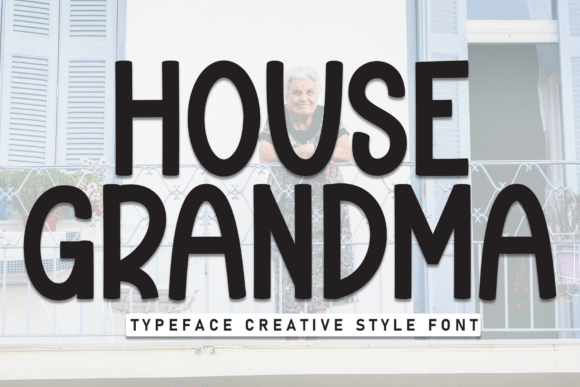
Discover the Joy of Handwritten Charm with House Grandma Font
Have you ever sat down to create a handmade wedding invitation or a heartfelt greeting card, only to feel stuck by the blank page staring back at you? We’ve all been there, searching for the perfect words to convey our emotions and love. That’s where the magic of House Grandma Font comes in – a delightful handwriting display font that adds a pinch of joy to your creative projects.
With House Grandma Font, you can turn the mundane into something truly special. This charmingly playful font is designed to bring a smile to your face and a touch of warmth to your designs. Whether you’re a seasoned designer or a crafty enthusiast, House Grandma Font is the perfect addition to your toolkit. Its versatility and friendliness make it a valuable asset for any creative project, from wedding invites to greeting cards and beyond.
House Grandma Font Key Features
- Unique Characteristics: House Grandma Font features a distinctive, hand-drawn style with a mix of modern and vintage elements, giving it a unique and eye-catching aesthetic.
- Legibility: The font is designed for optimal legibility, with clear and readable letterforms that make it suitable for body text and headlines alike.
House Grandma Font Review
I recently had the chance to work with the “House Grandma Font”, and I must say, it’s a font that will either bring warmth and nostalgia to your designs, or possibly overwhelm them. Let’s dive into the details.
- ✨ The font’s vintage feel is a great addition to any design that needs a warm and cozy touch.
- ✨ The variety of styles and weights available make it easy to find the perfect fit for your project.
- ✨ The font is well-suited for use in print materials, such as invitations and brochures, where a more traditional look is desired.
- ⚠️ The font can be quite busy, and may be overwhelming in larger quantities or in digital designs where a clean and minimal look is preferred.
- ⚠️ Some of the letters may not be as legible at smaller font sizes, which can make them difficult to read.
Overall, the “House Grandma Font” is a great choice for designers who want to add a touch of warmth and nostalgia to their projects. While it may not be the best fit for every design, it’s certainly a unique and charming option that can add a lot of character to your work.
Tips for Getting the Most Out of House Grandma Font
For best results, pair House Grandma Font with a bold, contrasting font to create visual interest. Use it for headings, titles, or emphasis to add a touch of vintage charm to your designs.
House Grandma Font is perfect for:
- Home decor and furniture designs
- Vintage-themed posters and flyers
- Quirky product labels and packaging
- Personalized gifts and stationery
Alternatives to House Grandma Font for Designers
Great Vibes Font is a modern, elegant script font ideal for use in logo designs, branding, and typography-based art. It’s a great choice for designers looking to create a sophisticated and refined aesthetic. Compared to House Grandma Font, Great Vibes Font is more polished and refined, with a focus on clean lines and precise letterforms.
Alex Brush Font is a beautiful, handwritten font perfect for use in creative projects, such as wedding invitations, greeting cards, and other personal designs. It’s a great choice for designers looking to add a touch of elegance and whimsy to their work. Compared to House Grandma Font, Alex Brush Font is more fluid and expressive, with a focus on organic letterforms.